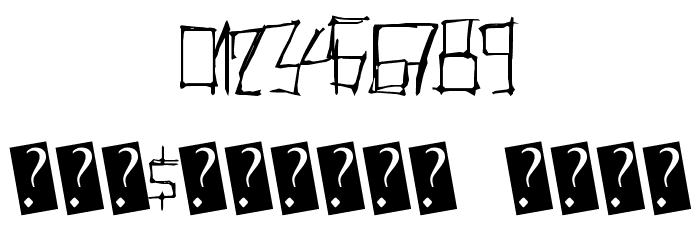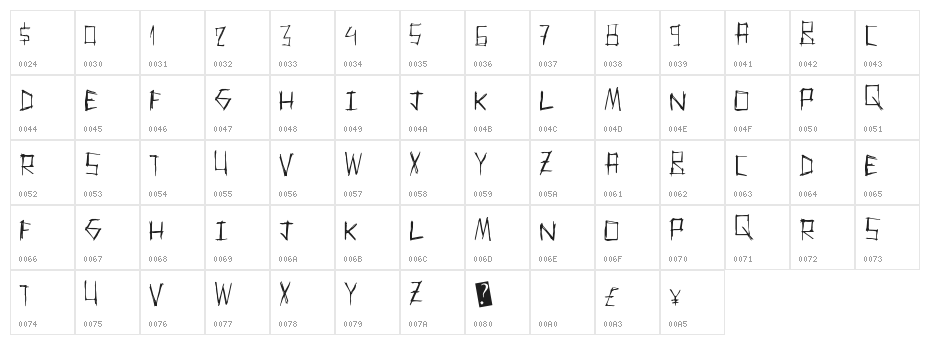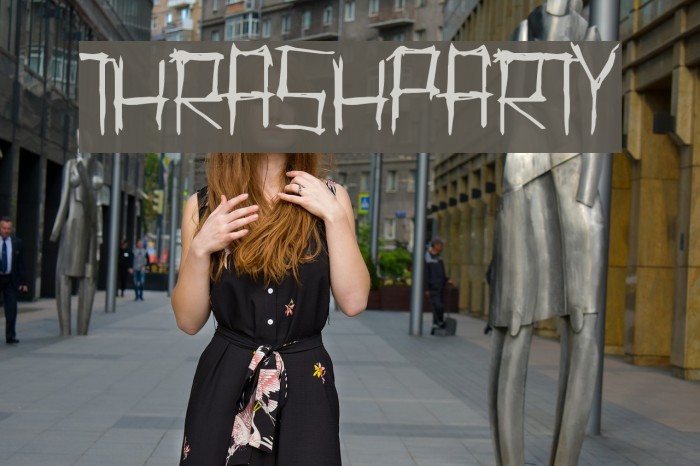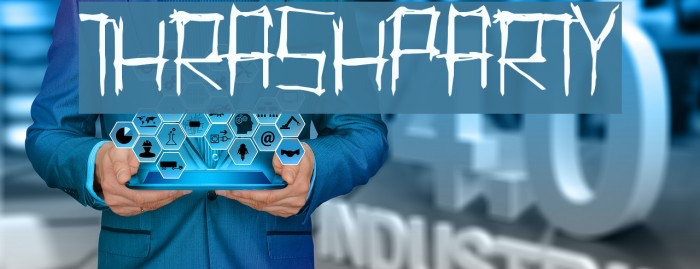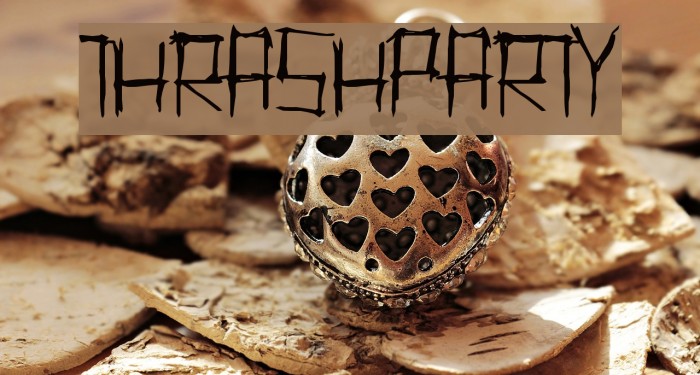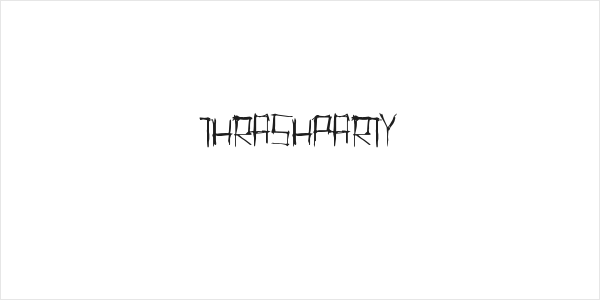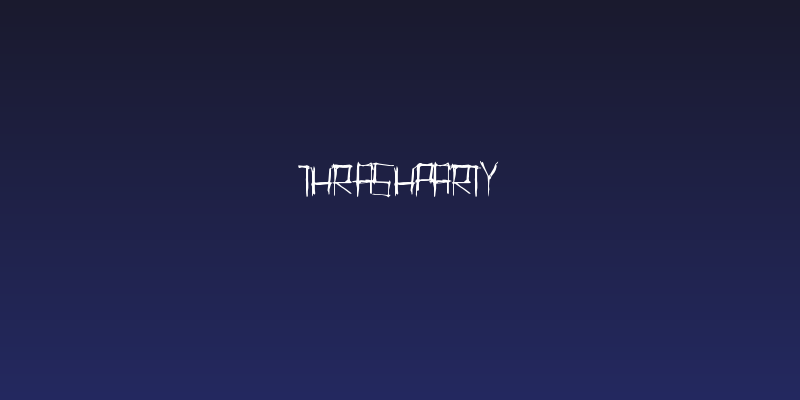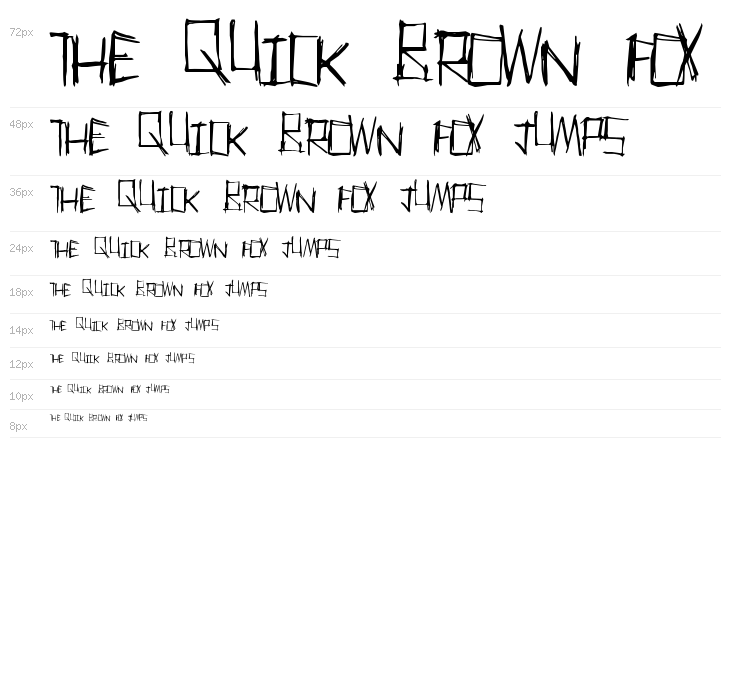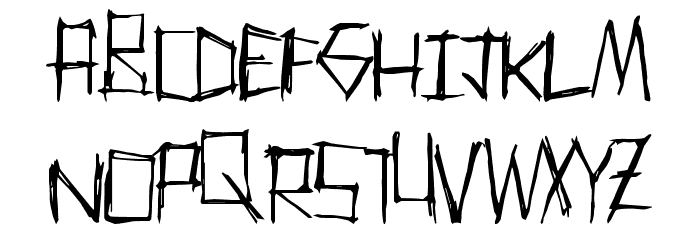
ThrashParty Font
ThrashParty Description
This font embodies a raw, edgy aesthetic with its jagged, angular strokes and sharp edges. Each character appears as if it has been hastily scratched or carved, giving it a rebellious and chaotic feel. The uppercase and lowercase letters maintain a consistent style, with exaggerated angles and uneven lines that create a sense of movement and energy. The numbers and special characters follow the same rugged design, ensuring a cohesive look across all elements. This font is perfect for projects that require a bold, unconventional statement.
| Overall Style | Modern, Edgy |
| Proposed Projects | Ideal for music album covers, event posters, skateboarding brands, and any project needing a bold, rebellious touch. |